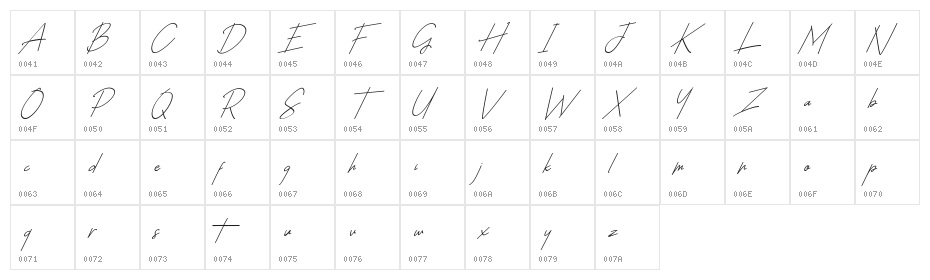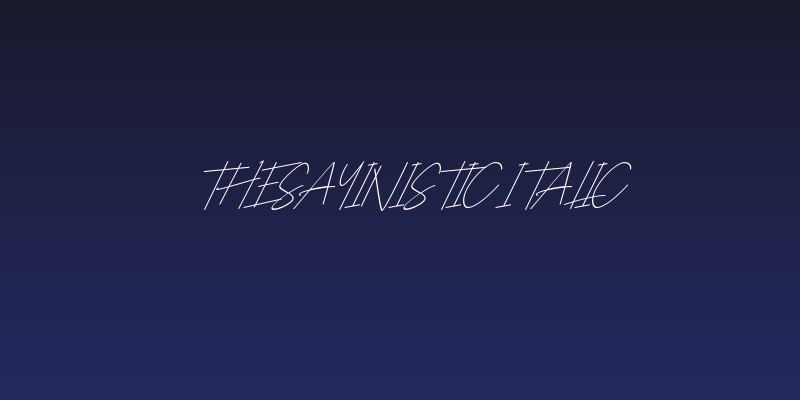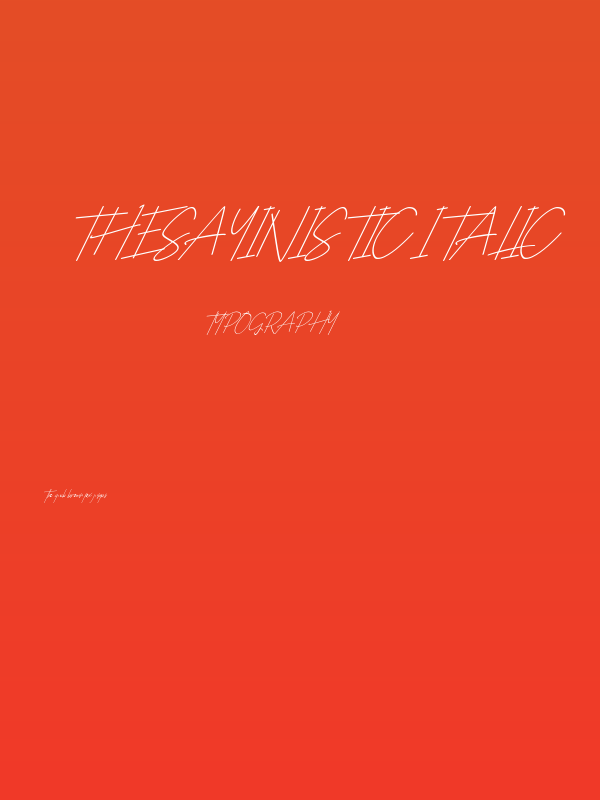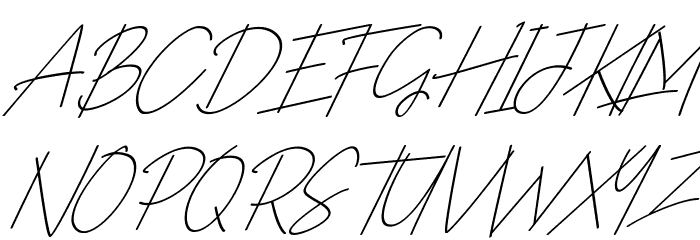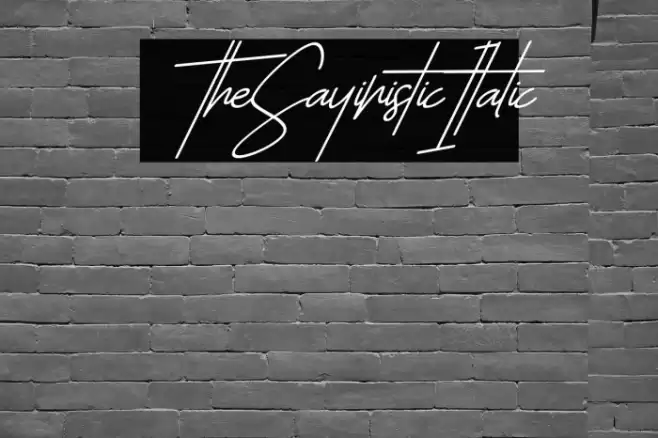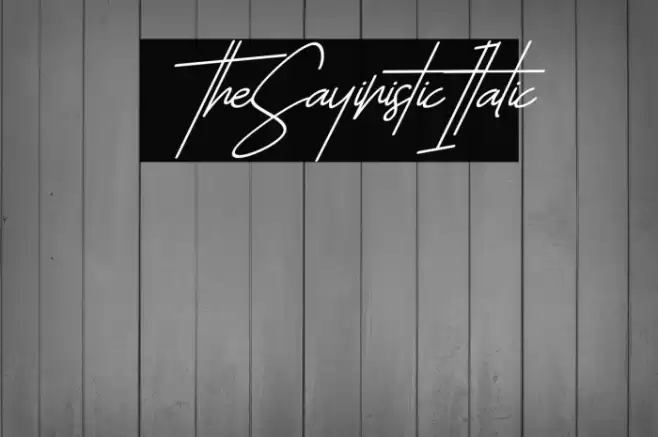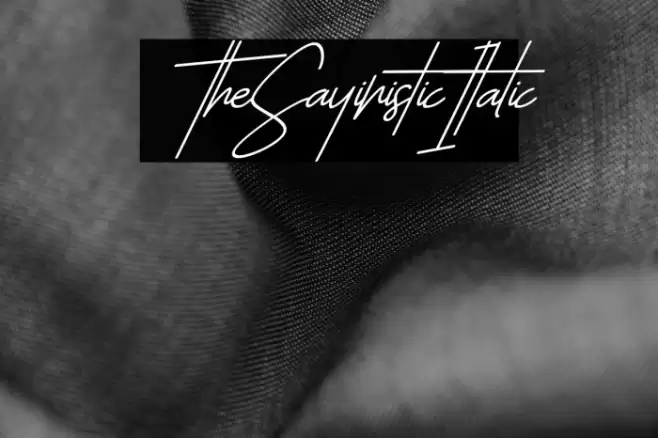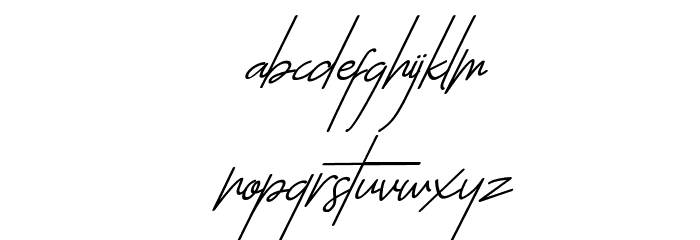
TheSayinistic-Italic Font
TheSayinistic-Italic Description
This font features a dynamic, handwritten style with a distinct italic slant, giving it a sense of motion and fluidity. The characters are elongated and narrow, with sharp, angular strokes that create a modern and edgy appearance. The uppercase letters are particularly tall and commanding, while the lowercase letters maintain a consistent flow. The overall design is clean yet expressive, making it suitable for creative and artistic projects. The font's unique style is accentuated by its tight character spacing and medium contrast between thick and thin strokes, adding to its visual impact.
| Font Family | The Sayinistic |
| Width | Condensed |
| Use Case | Logos, Headlines, Creative projects |
| Proposed Projects | Ideal for artistic designs, branding, fashion magazines, and creative posters. |